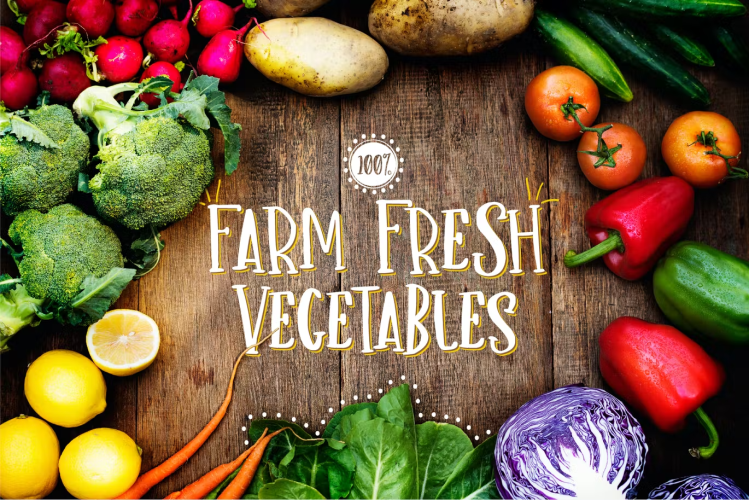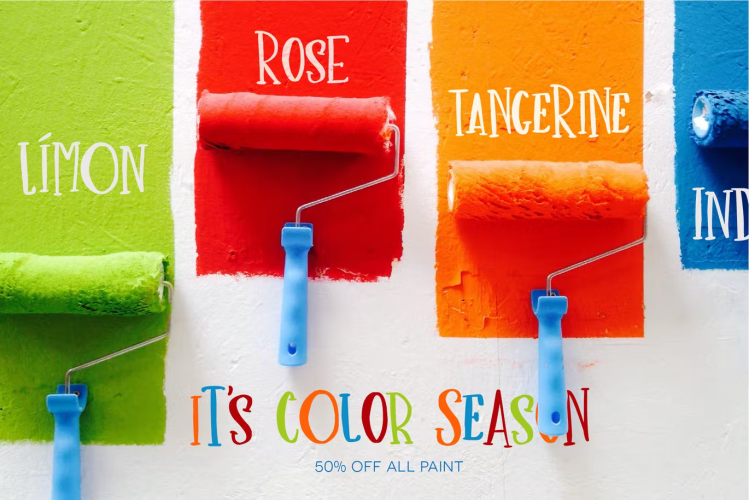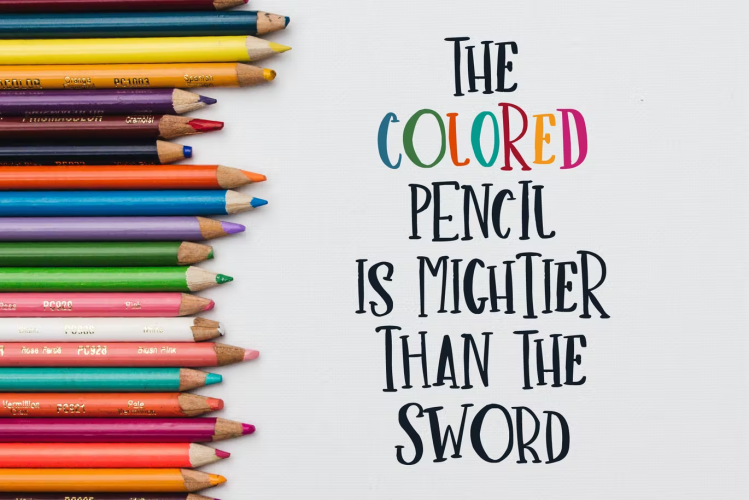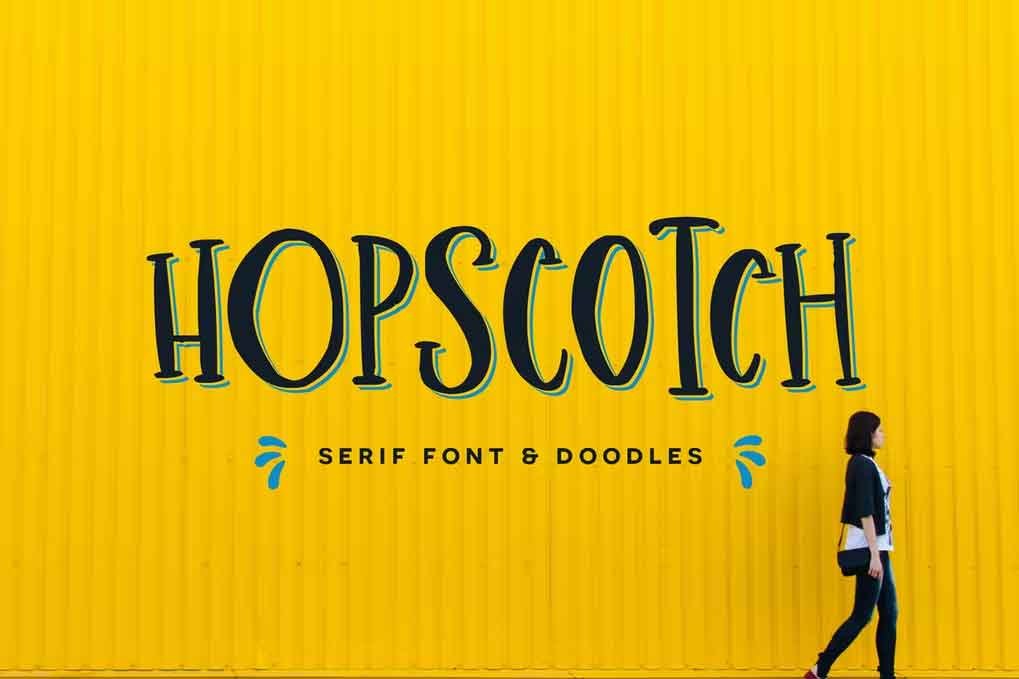
Hopscotch Font
ABOUT HOPSCOTCH
Hopscotch is a perfectly fun summer style font that includes hand written doodles! This adorable serif font has a bouncy baseline and comes with a full set of alternates when you use the capital letters. Perfect for prints, invitations, greeting cards, custom typography,and more!
Hopscotch Font is a Serif Fonts font that brings a professional and versatile look to your projects. ABOUT HOPSCOTCH Hopscotch is a perfectly fun summer style font that includes hand written doodles!.